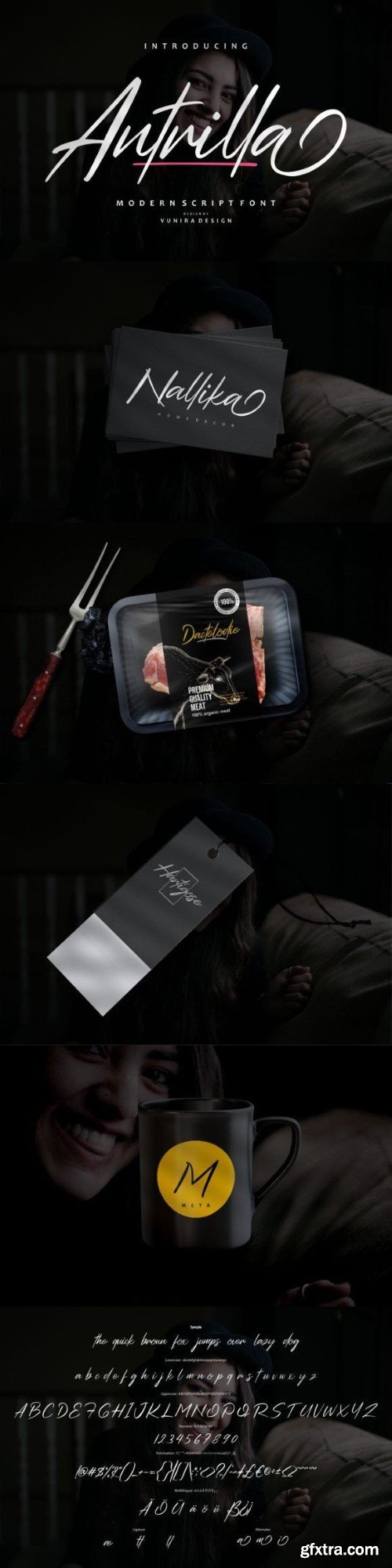
安特里拉字体
Antrilla – Modern Script is a stylish and contemporary font that brings a fresh vibe to your projects. With sleek, flowing lines, it adds a touch of modern elegance to your text. Perfect for a variety of applications, from invitations to branding, Antrilla effortlessly combines sophistication with a trendy twist. Upgrade your designs with this versatile and eye-catching modern script font, making your text stand out with simplicity and flair.